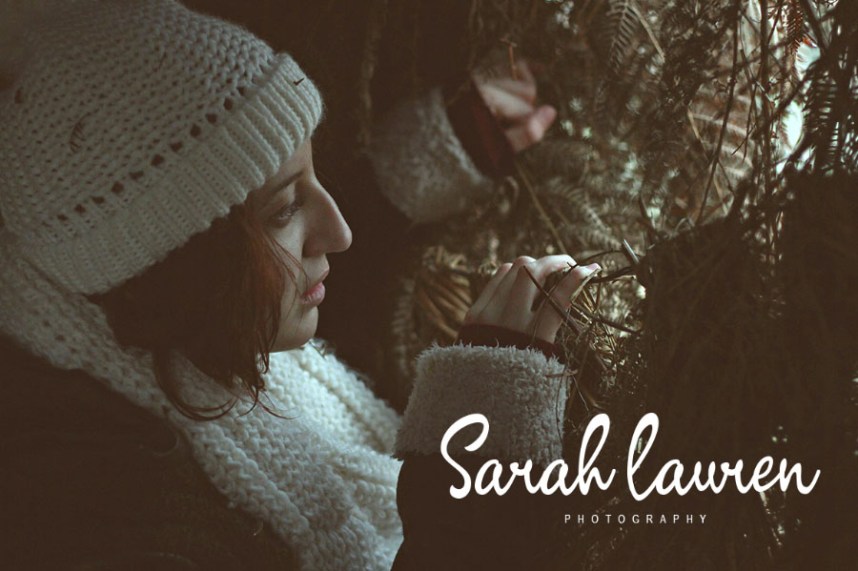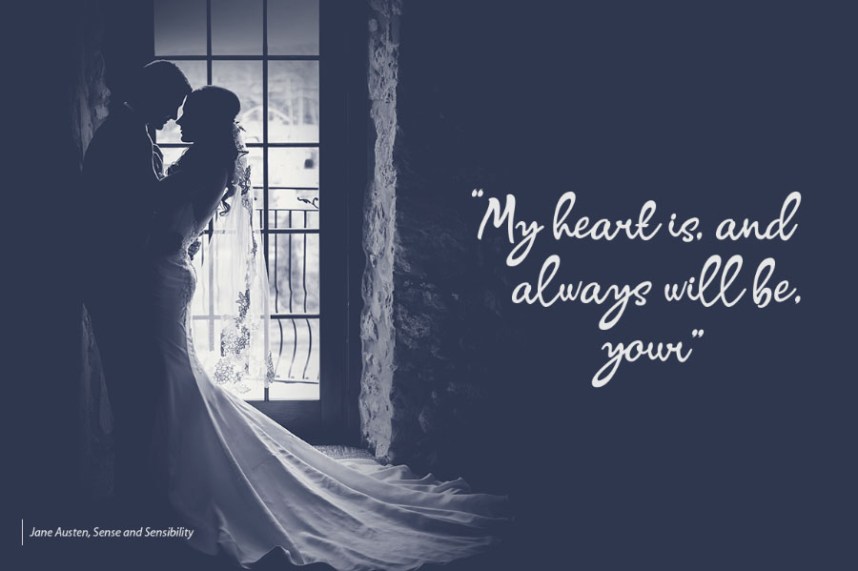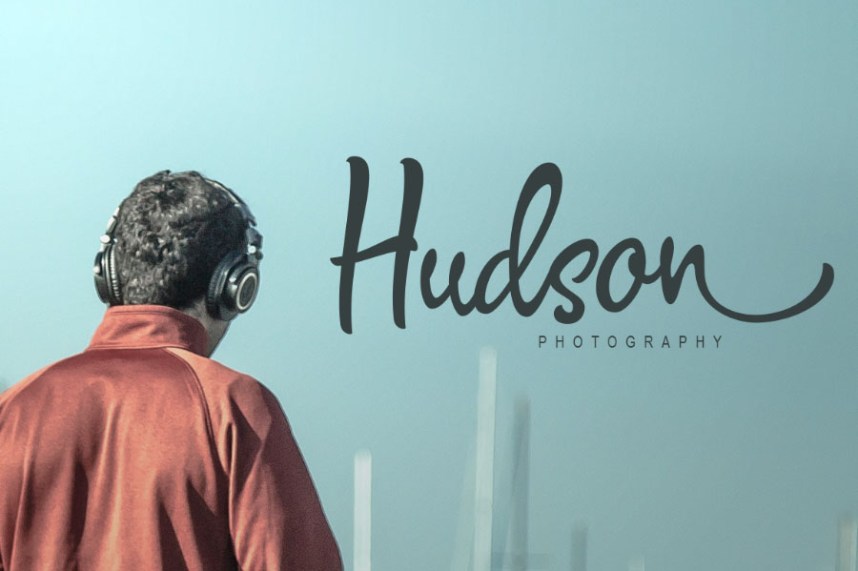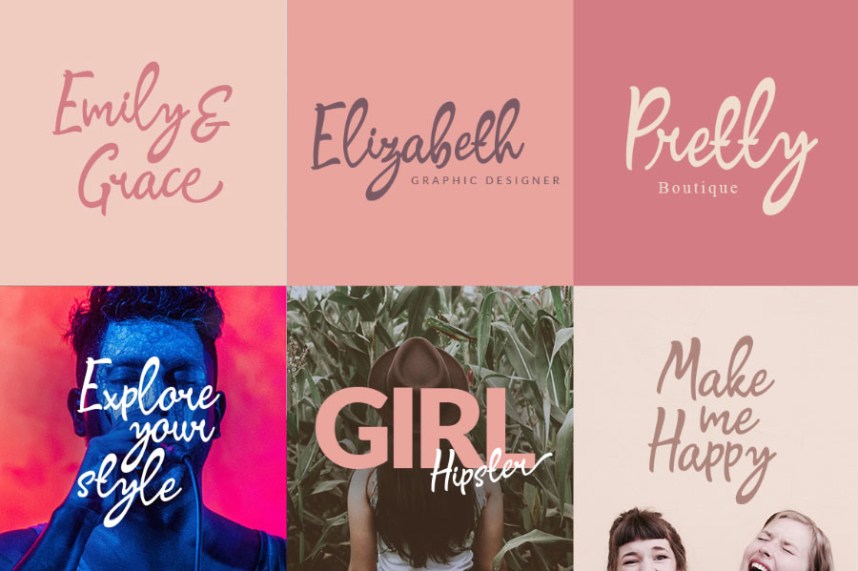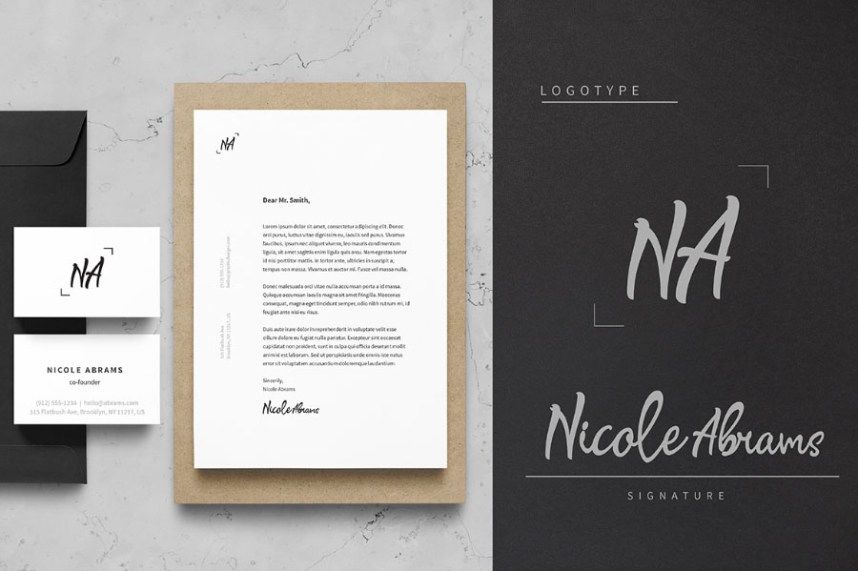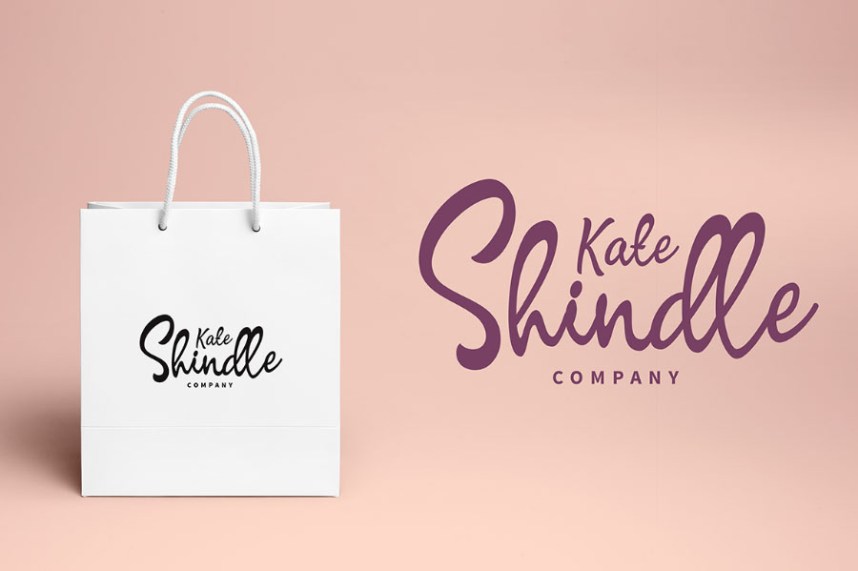
Signature Script Font
Greeting the new day! Start with a new handwriting, it will make your work more creative! Introducing Signature Script Font! Signature Script designed by ShowUp! Typefoundry. Signature script is handmade signature style font with stunning characters. Ideal for logos, name tag, handwritten quotes, product packaging, merchandise, social media & greeting cards. It contains a full set of lower & uppercase letters, a large range of punctuation, numerals, and multilingual support.